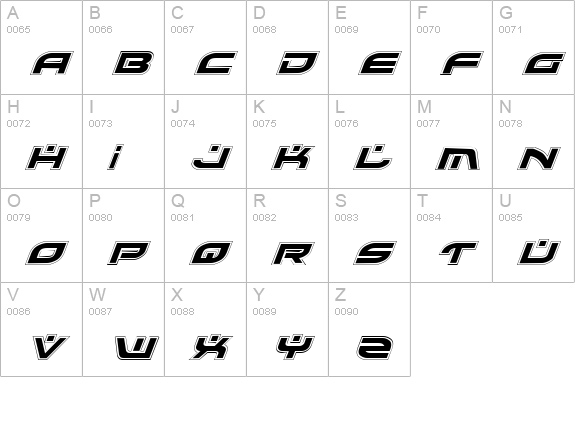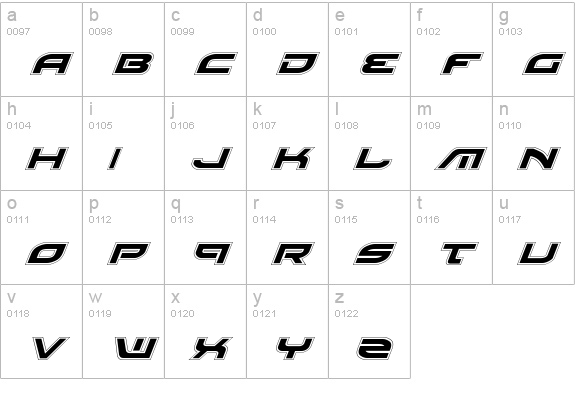
Battlefield Pro Italic is a distinctive, italic variant in the Battlefield typeface family \xE2\x80\x94 well suited to design and typography projects.
Battlefield Pro Italic is a sleek and modern font that exudes strength and boldness. Its sharp angles and dynamic curves make it perfect for adding a touch of sophistication to any project. Whether you're designing a logo, creating a poster, or crafting a presentation, Battlefield Pro Italic will make your text stand out with its distinctive style. What's even better is that Battlefield Pro Italic is available for free download at FontsMarket.com. This means you can easily access this premium font without any cost, making it a valuable addition to your font collection. Don't miss out on the opportunity to elevate your designs with Battlefield Pro Italic - download it today and unleash your creativity!